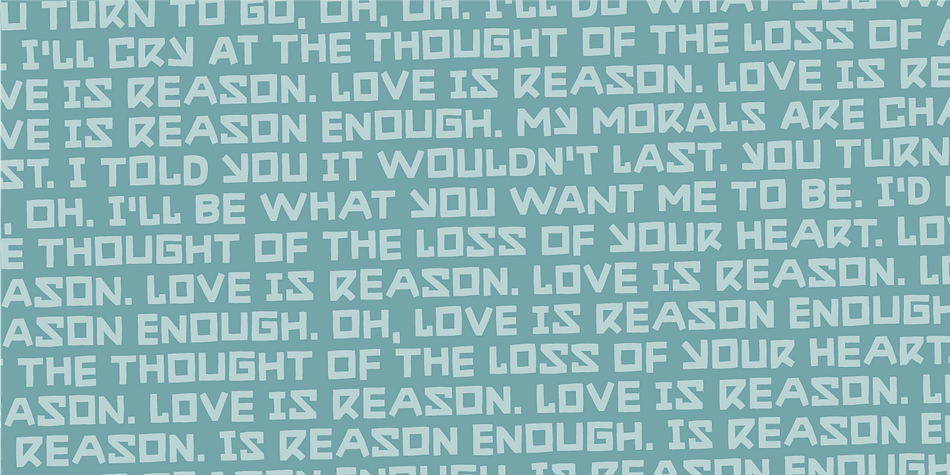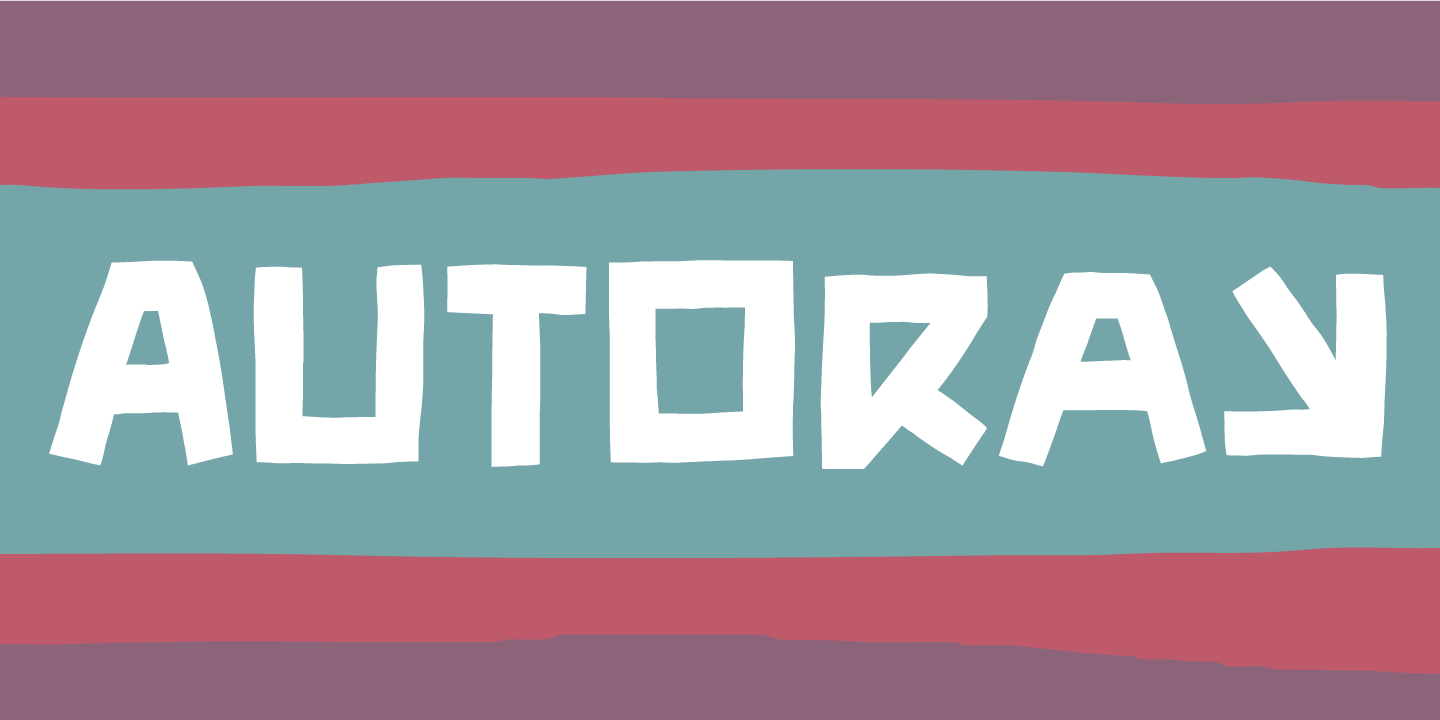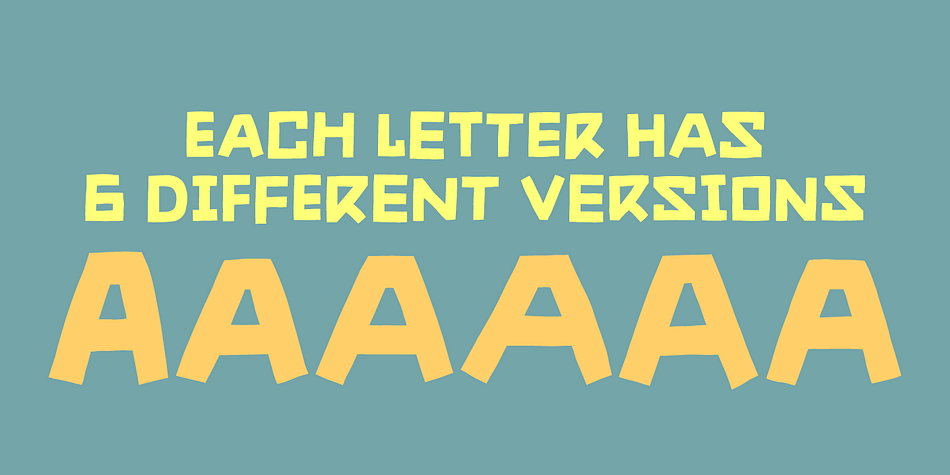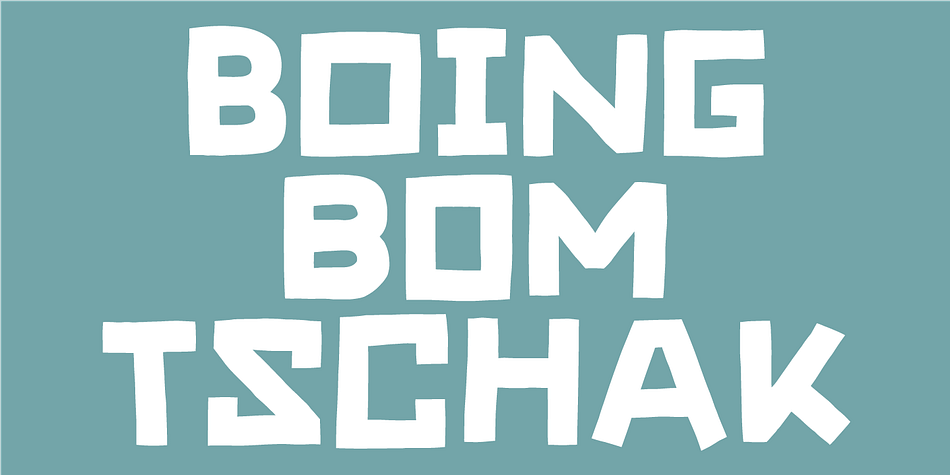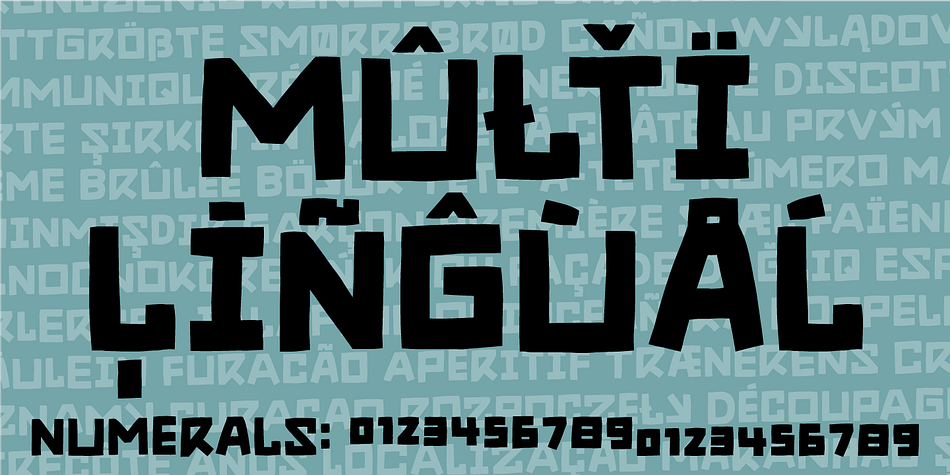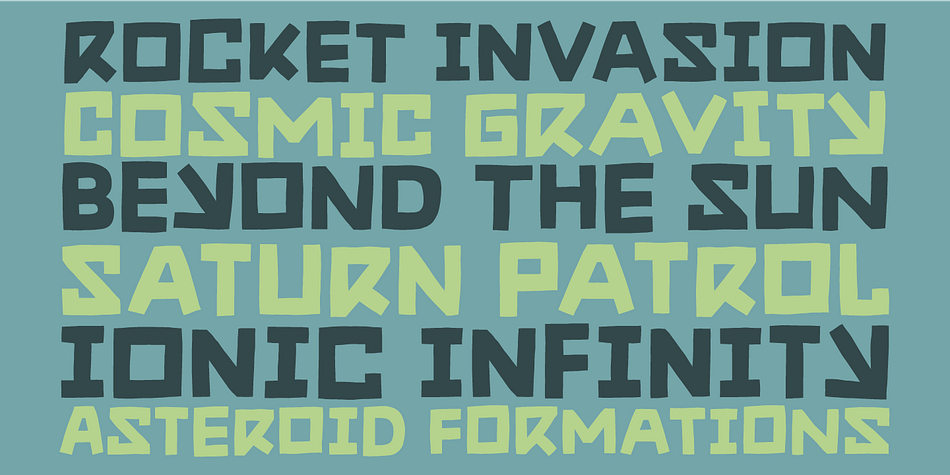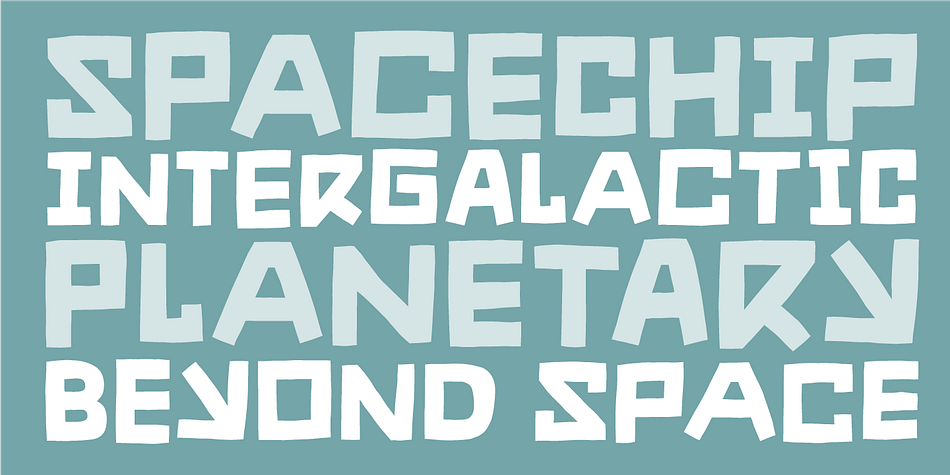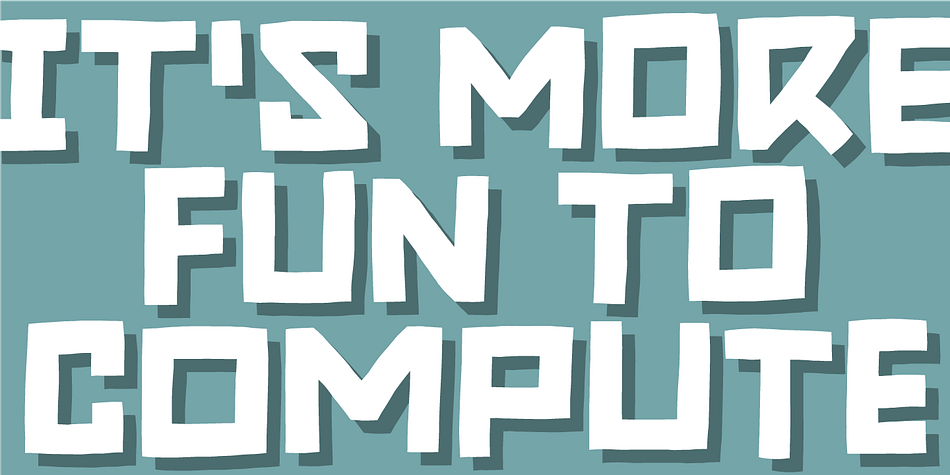
Autoray
Designed by Jakob Fischer, Autoray is a display sans and hand display font family. This typeface has two styles and was published by Pizzadude.dk.
Usually fonts that are related to computers, space, future are not handmade, but rather digital made. Autoray is 100% handmade, and I am not sure which category it fits in.
It has this futuristic and intergalactic look, but at the same time the handmade details are pointing in a more grafitti and comic way. I will let you decide where to go with Autoray!
I have added 5 different versions of each letter, and they automatically changes as you type - and of course, there’s multilingual support - and even intergalactic gravity! :)